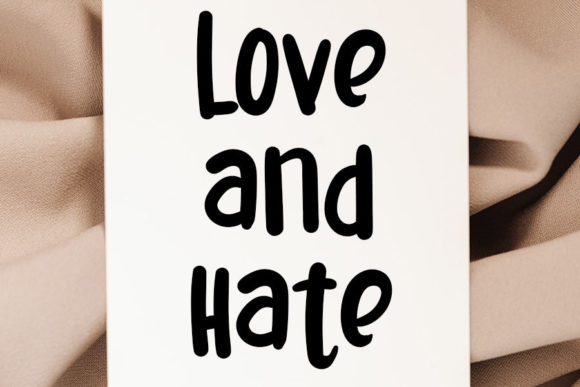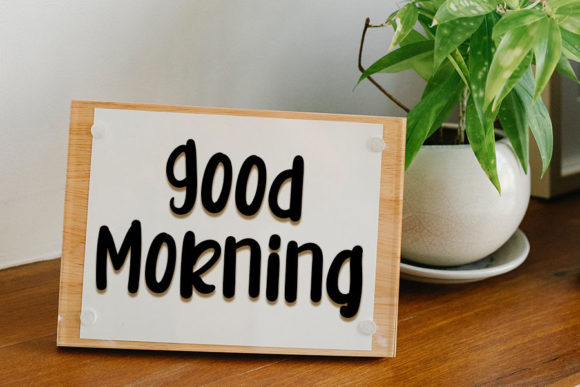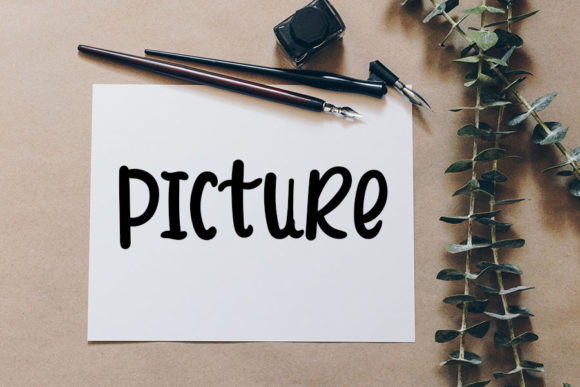
The Ultimate Guide to Cashback Font: Elevate Your Designs with Style
I’ll never forget the time I was working on a logo design project for a trendy coffee shop. My client wanted a font that was modern, yet had a touch of playfulness. I scoured the internet for hours, but nothing seemed quite right. That was until I stumbled upon the Cashback Font. ✨ It was love at first sight! The clean, paint-brushed display font was exactly what I needed to bring the design to life.
An Honest Review of Cashback Font
• ✨ Unique and beautiful touch on every letter
• ✅ Perfect for creating eye-catching logos, branding, and quotes
• 💥 Clean and modern design with a hint of playfulness
• 🎨 Versatile and easy to pair with other fonts
While Cashback Font is an amazing addition to any design project, there are a few things to keep in mind: ⚠️ It may not be suitable for body text due to its display font nature. Also, some users have reported issues with kerning, but this can be easily adjusted in most design software.
🤔 One thing to note is that Cashback Font may not have extensive language support, so it’s essential to check the font’s capabilities before using it for a multilingual project.
3. Experiment with OpenType features, such as glyphs and stylistic alternates, to add more personality to your design
The Story Behind Cashback Font
Legend has it that Cashback Font was created by a young designer who was inspired by the world of street art and graffiti. With a passion for clean lines and bold typography, the designer spent countless hours perfecting the font, pouring their heart and soul into every letterform. The result is a font that’s both modern and timeless, perfect for designers who want to add a touch of style to their projects.
Q: What type of projects is Cashback Font best suited for?
A: Cashback Font is perfect for creating eye-catching logos, branding, and quotes. It’s also great for creative projects, such as posters, social media graphics, and t-shirt designs.
Q: Is Cashback Font available in different weights or styles?
A: Currently, Cashback Font is available in a single weight. However, the designer may release additional weights or styles in the future, so it’s worth keeping an eye on their website for updates.